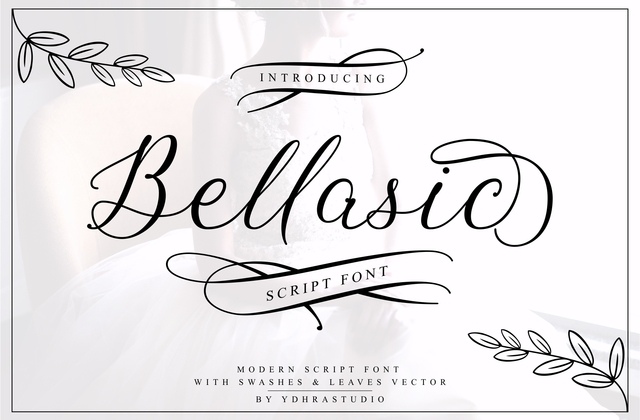
Bellasic Font
Bellasic Font is perfect for elegant branding, luxury fashion labels, sophisticated magazines, high-end cosmetic packaging, premium wedding stationery, boutique logos, upscale restaurant menus, exclusive event invitations, refined editorial design, and timeless corporate identities.
What makes Bellasic Font so exciting is its sophisticated blend of classical elegance and contemporary refinement that creates an instantly recognizable premium aesthetic. This exceptional typeface embodies timeless beauty while maintaining modern functionality, delivering typography that exudes luxury and sophistication in every character.
The Bellasic Font family includes light, regular, medium, and bold weights, complete with italic variations and elegant ligatures, providing designers with a comprehensive typographic toolkit for creating sophisticated and memorable design solutions.
Embrace timeless elegance with Bellasic Font Free Download, a masterfully crafted typeface that represents the pinnacle of sophisticated typography design. This extraordinary font combines classical proportions with contemporary precision, creating a perfect balance between heritage beauty and modern functionality that elevates any design project.
The exquisitely proportioned letterforms of Bellasic Font showcase refined craftsmanship and attention to detail that reflects centuries of typographic tradition. Each character displays perfect balance between thick and thin strokes, creating elegant contrast that enhances readability while maintaining visual sophistication. The font's generous spacing and harmonious proportions contribute to exceptional legibility and premium appearance across all applications.
Luxury brands and discerning designers worldwide choose Bellasic Font for projects demanding uncompromising quality and sophisticated appeal. The comprehensive character set includes standard and stylistic alternates, old-style figures, small caps, comprehensive punctuation, and international support, providing complete tools for creating elegant compositions that meet the highest professional standards.
The enduring appeal of Bellasic Font ensures consistent performance across both traditional print and modern digital platforms. Whether developing premium brand identities, creating luxury packaging designs, or designing sophisticated editorial layouts, this remarkable typeface delivers the refined elegance that distinguishes exceptional design from ordinary typography.